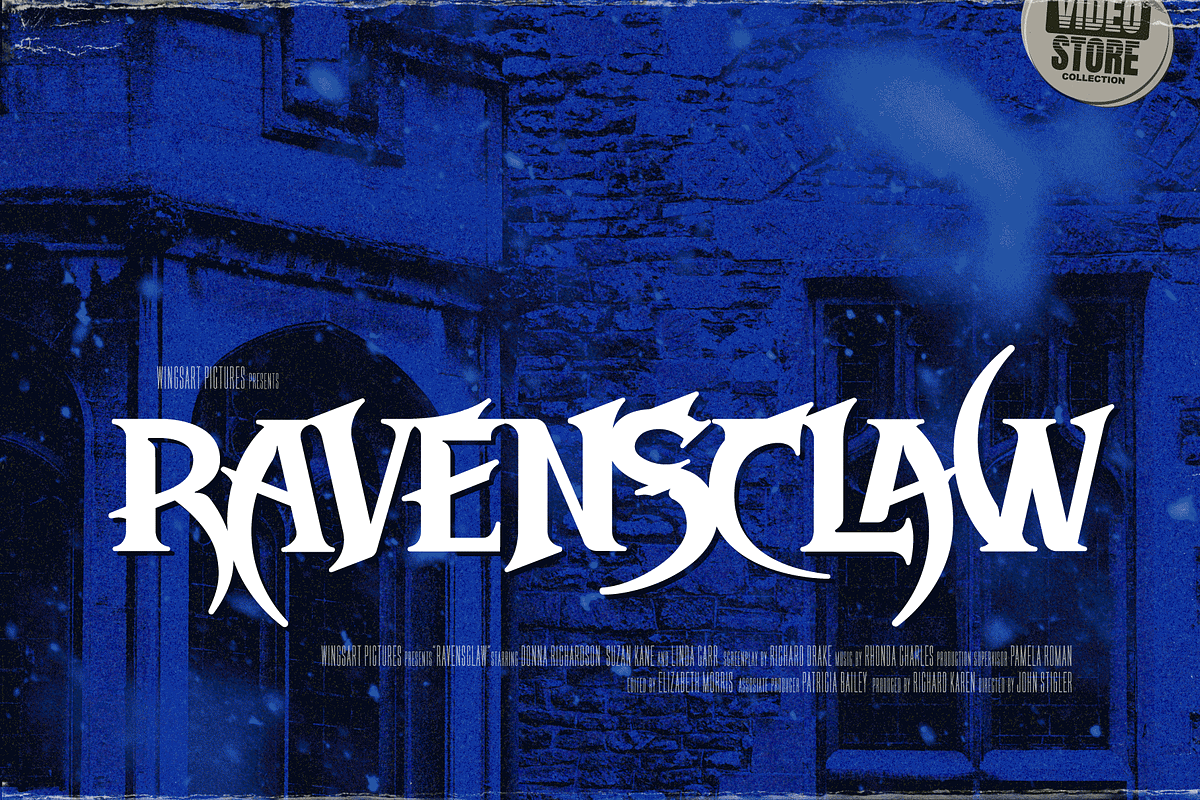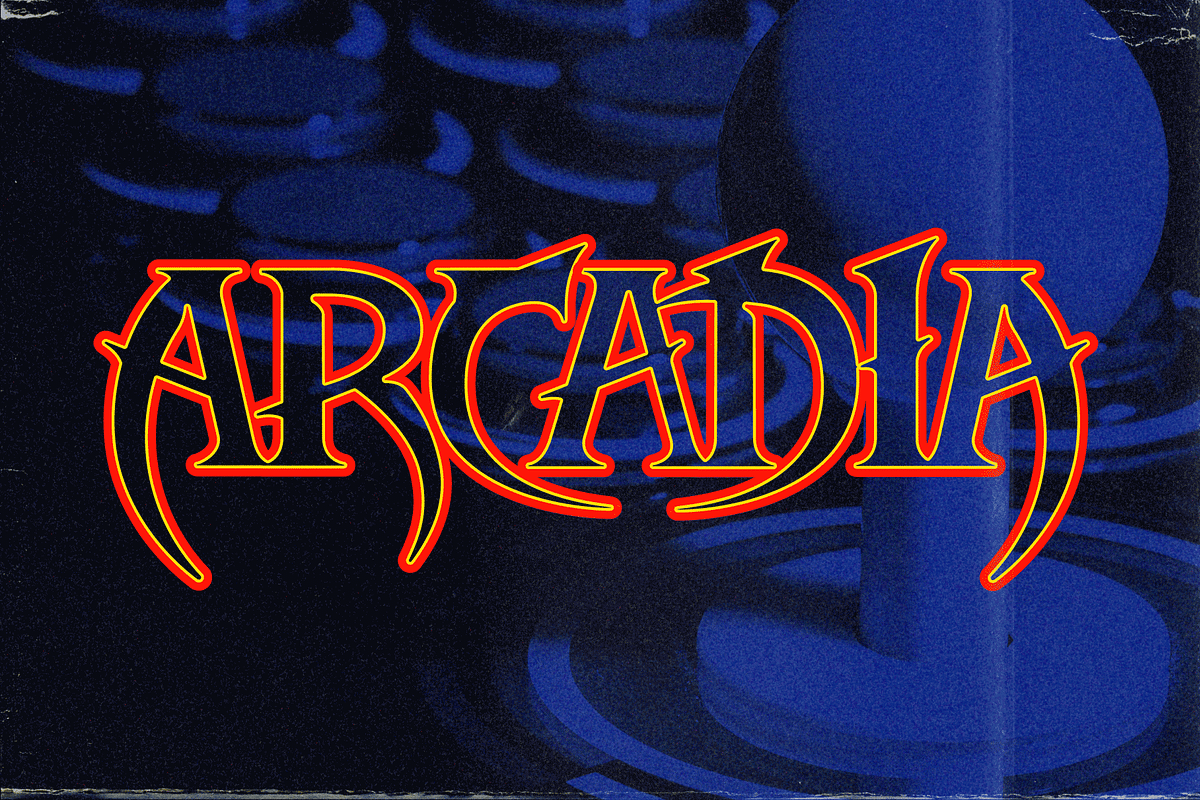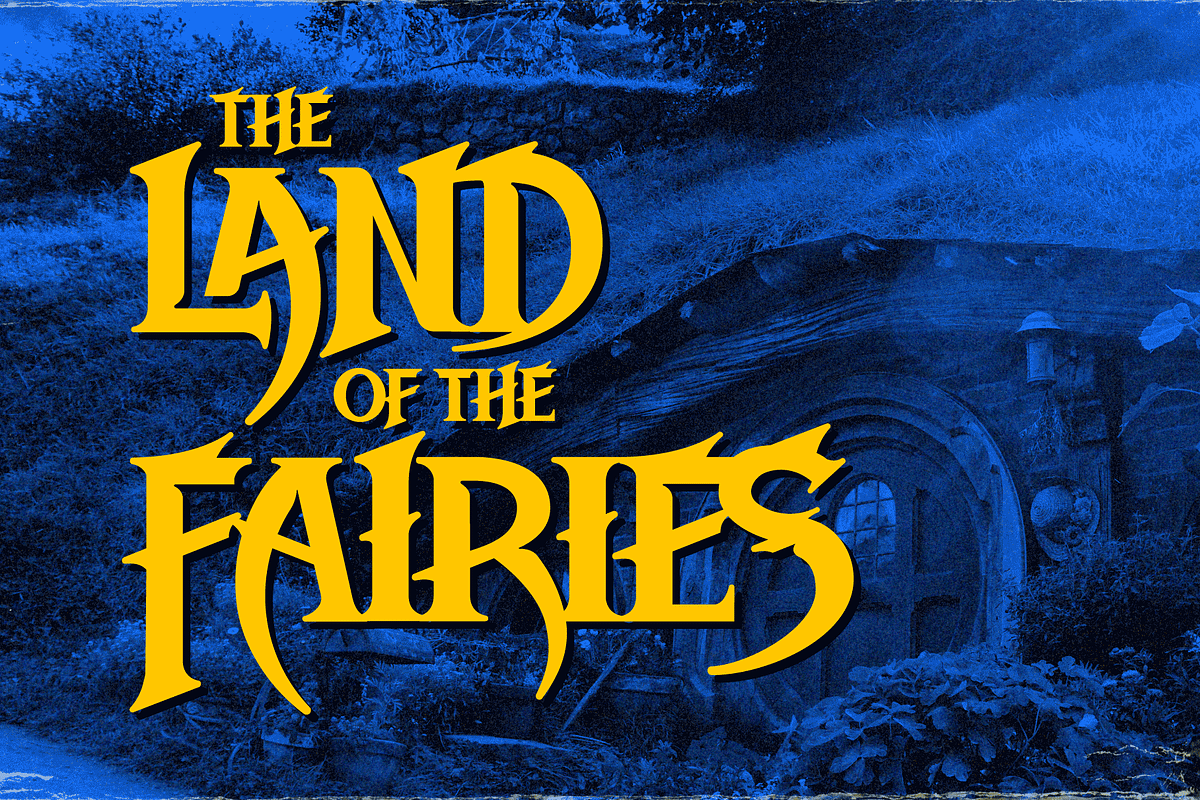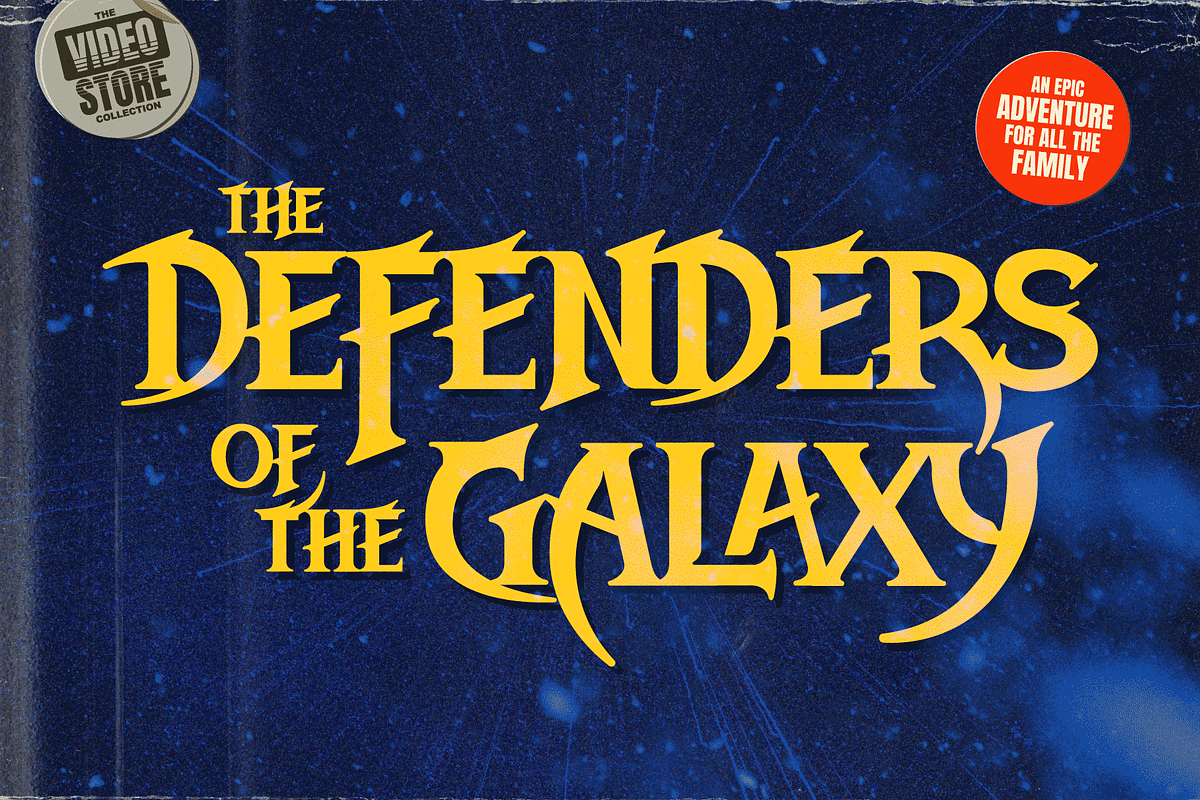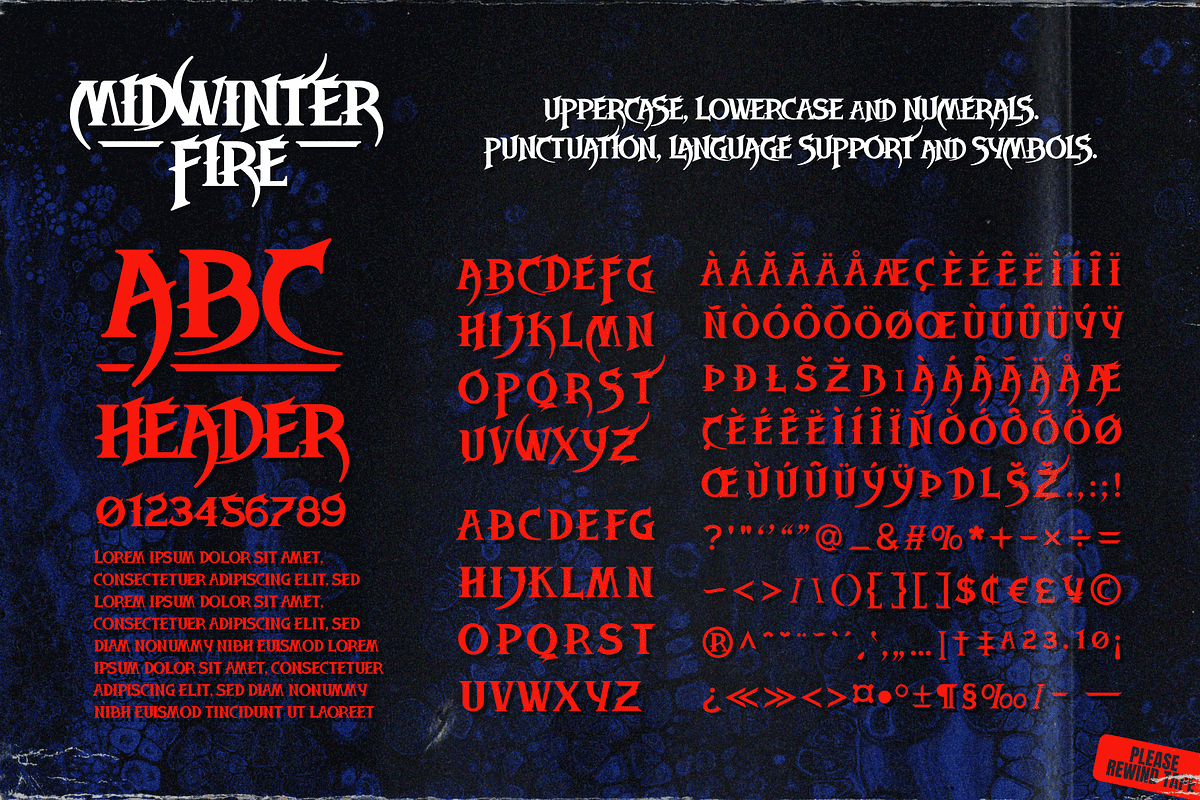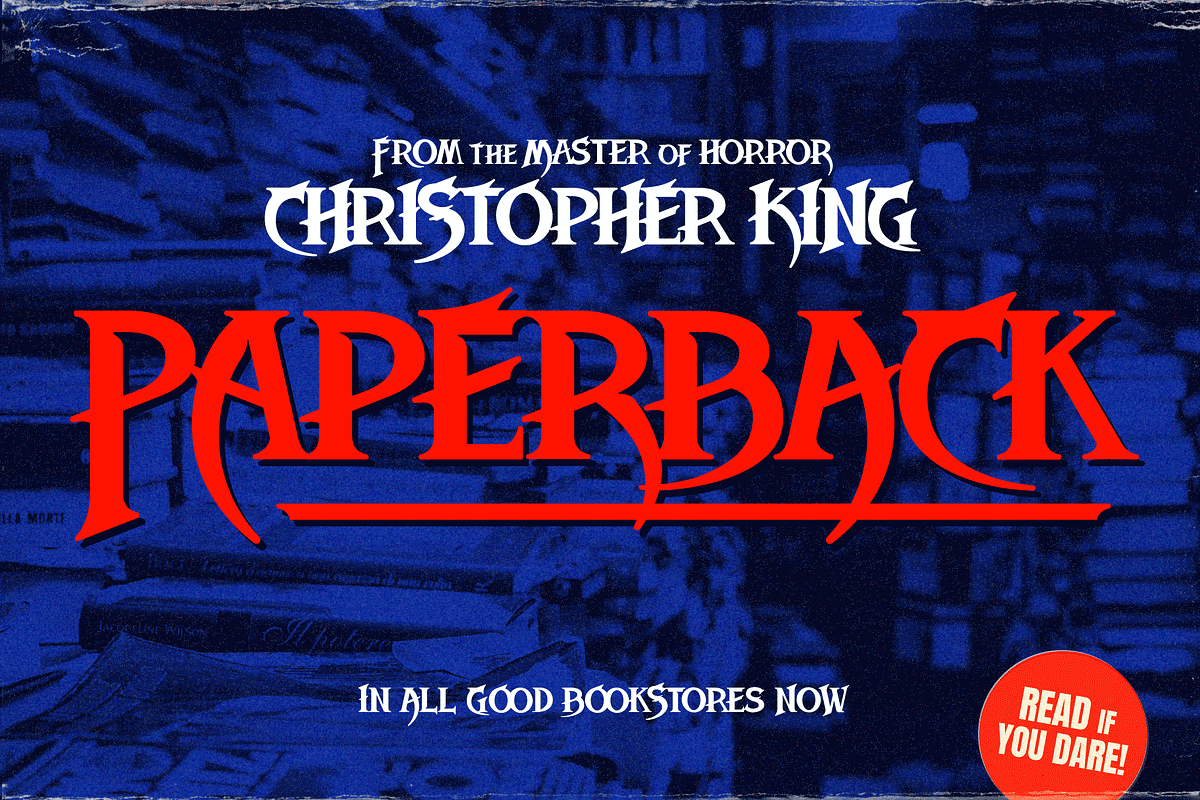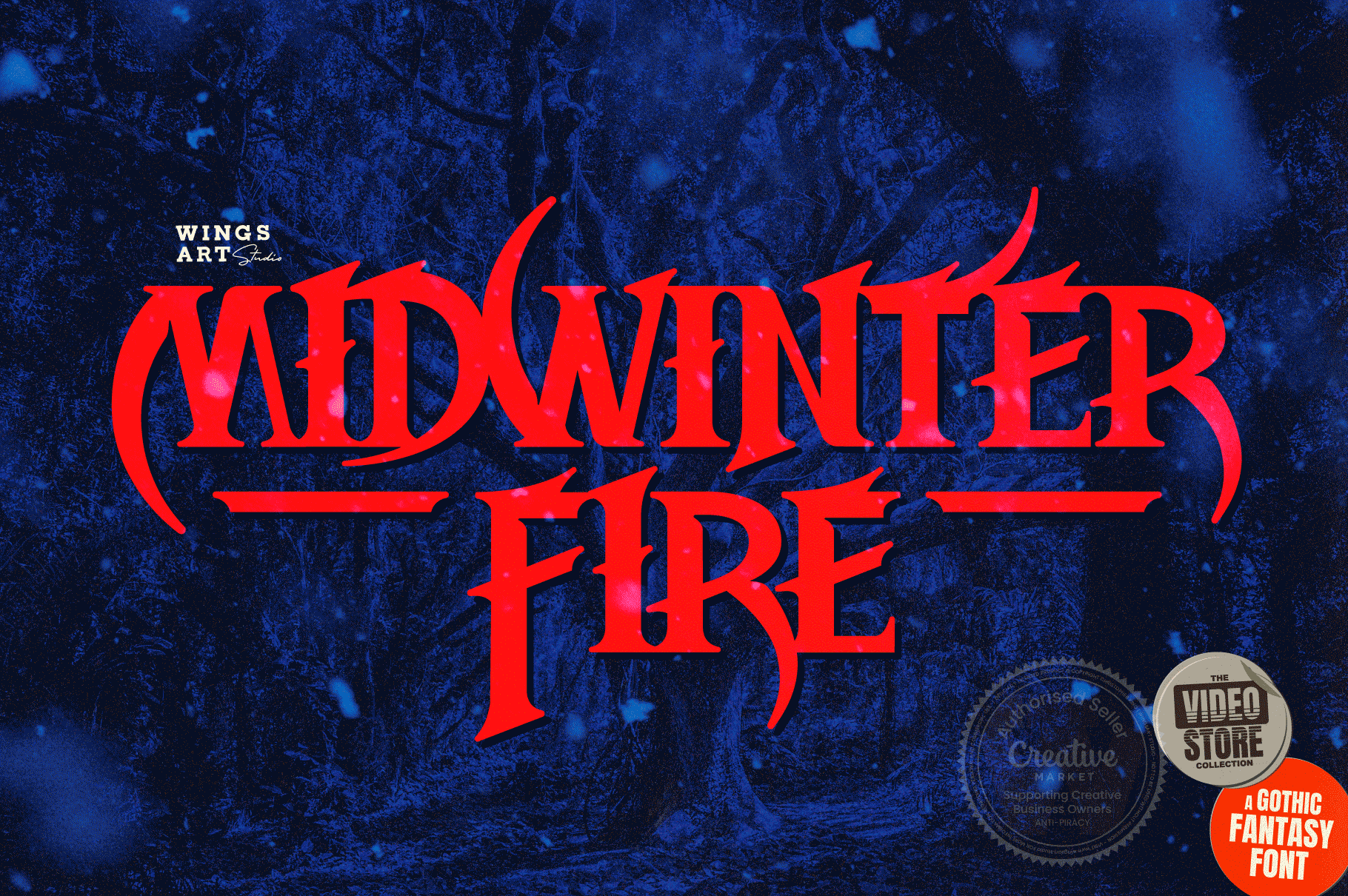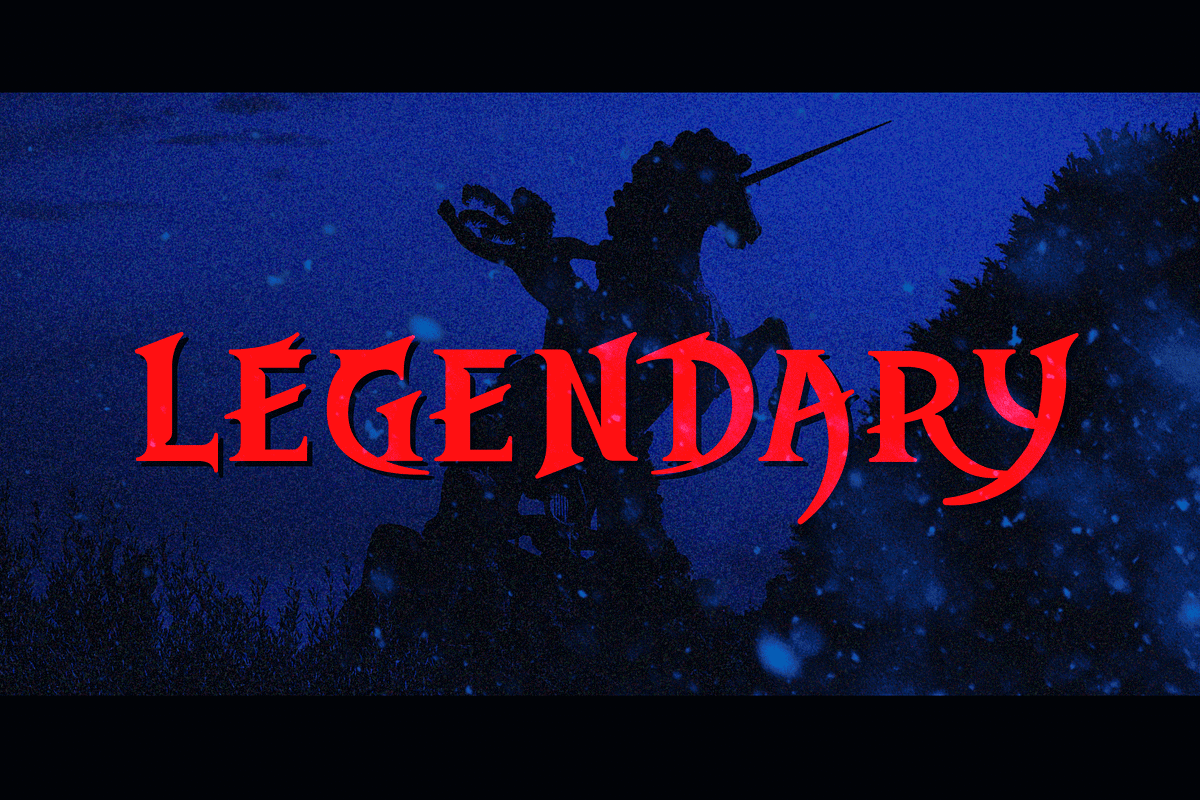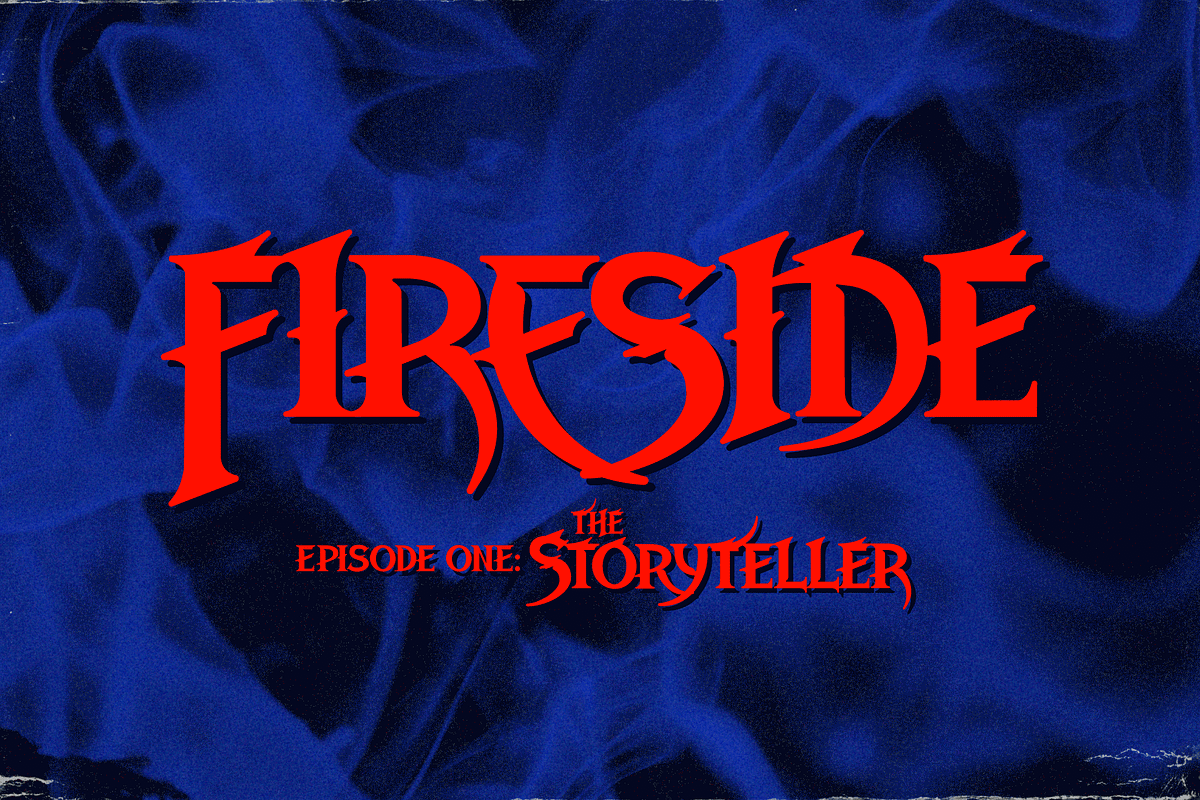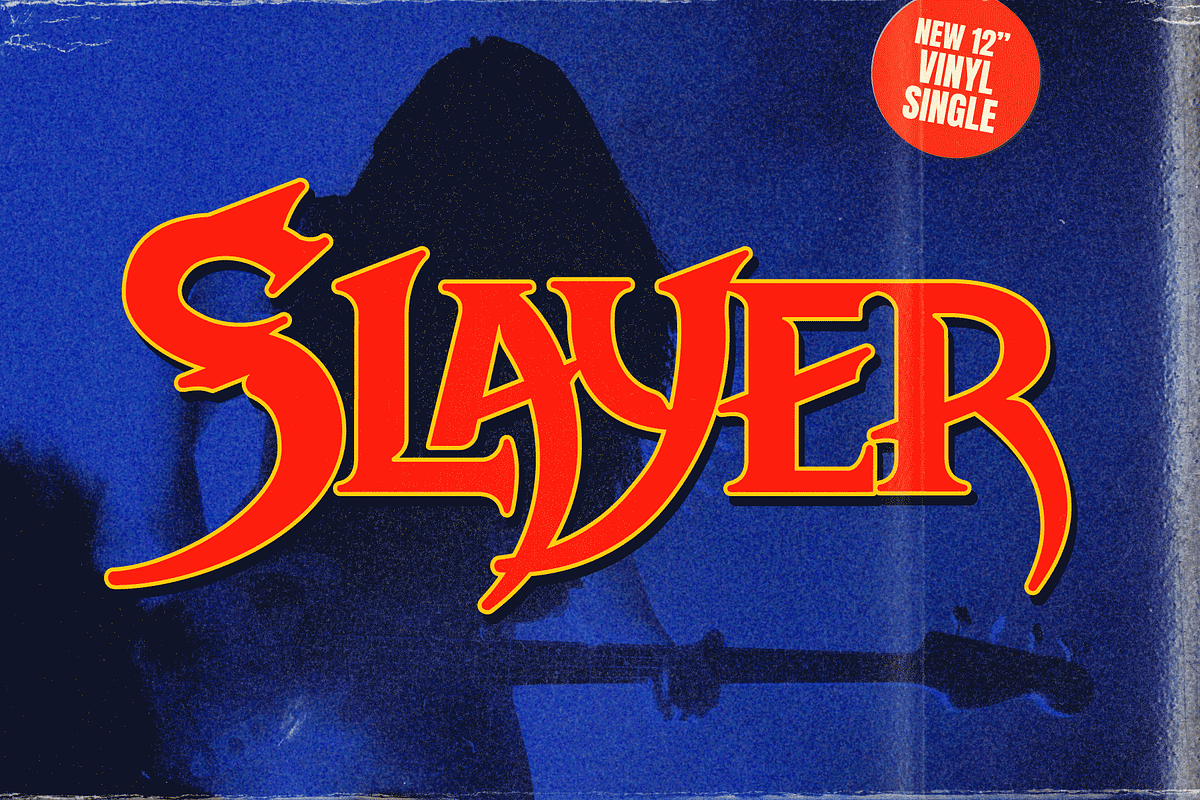
Midwinter Fire: Gothic Fantasy Font
A decorative serif font inspired by tales of gothic fantasy and horror.
Inspired by gothic cathedrals, ancient myths and campfire horror stories, Midwinter Fire is a font for the coming of Autumn when our days become shorter, darkness closes in and the snow begins to fall. It's for those chilling tales of terror and fairy tales that caution us not to go into the woods.
Midwinter Fire is a versatile serif font, classical in style that can be applied to book covers, movie titles, rock albums, arcade games or even a vintage ale! It's the perfect choice for a decorative gothic look that remains readable at smaller sizes.
Midwinter Fire is an all-caps serif font that includes lots of alternative characters and underlines along with numerals, punctuation and language support.